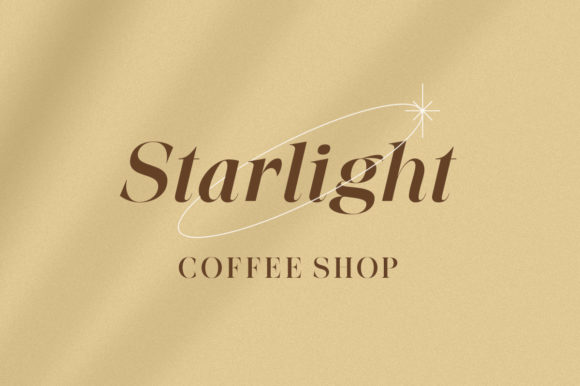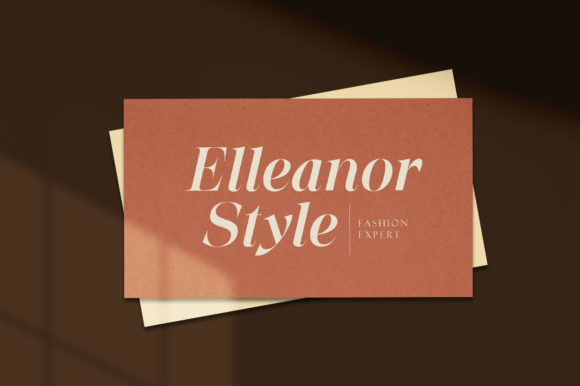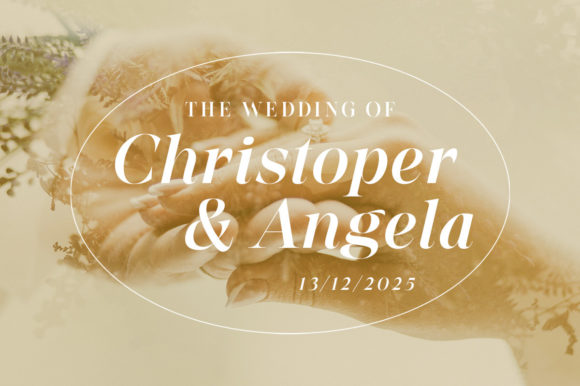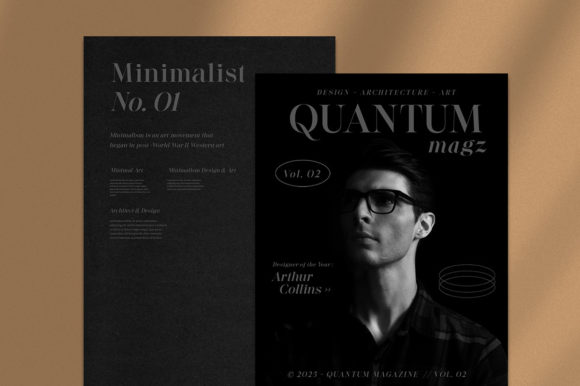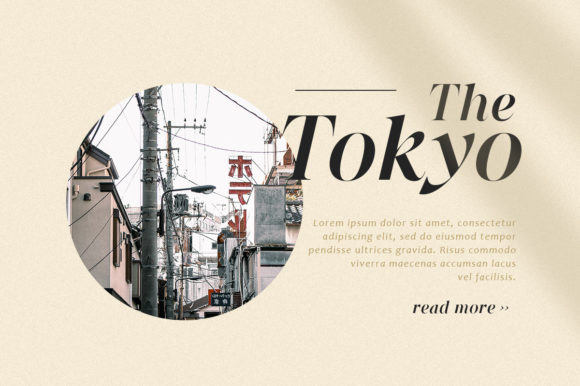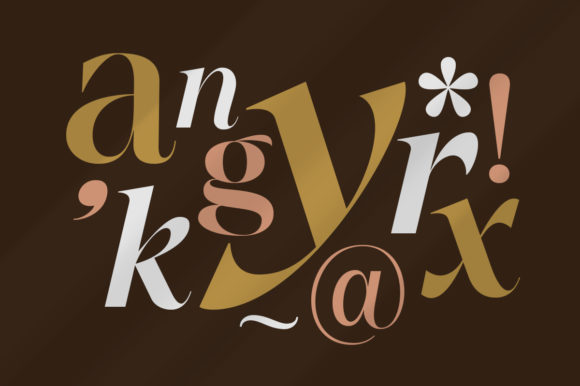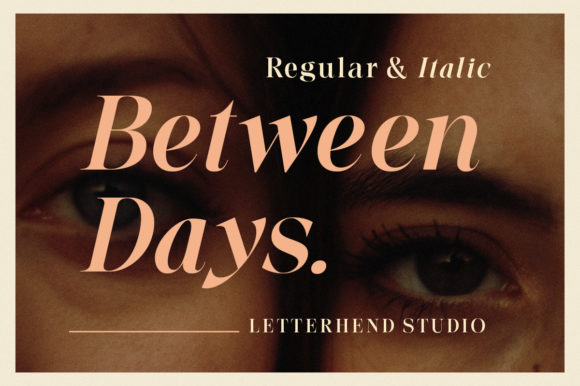
Introducing Between Days Font: Elevate Your Designs with Classic Chic
In the world of typography, finding the perfect font can make all the difference in creating visually stunning designs. If you’re on the hunt for a classic, chic, and distinct serif font, look no further than Between Days Font. This versatile typeface is ideal for a wide range of design projects, from web designs and business cards to craft projects and more. In this article, we’ll dive into the features and benefits of Between Days Font, and explore how it can add a unique touch to your favorite creations.
The Characteristics of Between Days Font
Between Days Font is a serif font that exudes elegance and sophistication. Its classic design makes it perfect for projects that require a touch of tradition and refinement. The font features distinctive serifs, carefully crafted to add a level of uniqueness to your designs. The overall aesthetic is chic and modern, making it suitable for a wide range of applications, from digital designs to print materials.
Why Choose Between Days Font?
So, what sets Between Days Font apart from other fonts? Here are just a few reasons why designers and crafters love this typeface:
- Unique Touch: Between Days Font adds a distinctive touch to your designs, setting them apart from the crowd.
- Versatility: This font is suitable for a wide range of design projects, from web designs and business cards to craft projects and more.
- Elegance: The classic design of Between Days Font makes it perfect for projects that require a touch of sophistication and refinement.
- Readability: The font is designed to be highly readable, making it perfect for body text and headlines.
Using Between Days Font in Your Designs
Between Days Font is incredibly easy to use, making it perfect for designers and crafters of all skill levels. Here are a few ideas for incorporating this font into your designs:
- Web Designs: Use Between Days Font as a heading font or body text to add a touch of elegance to your website.
- Business Cards: Make a lasting impression with a business card that features Between Days Font.
- Craft Projects: Add a personal touch to your craft projects, such as handmade cards, invitations, and more.
- Print Materials: Use Between Days Font in brochures, flyers, and other print materials to add a touch of sophistication.
Tips for Getting the Most Out of Between Days Font
To get the most out of Between Days Font, here are a few tips to keep in mind:
- Experiment with Font Sizes: Play around with different font sizes to find the perfect balance for your design.
- Pair with Other Fonts: Combine Between Days Font with other fonts to create a unique and visually appealing design.
- Use in Headlines and Body Text: Use Between Days Font in headlines and body text to create a cohesive look.
In conclusion, Between Days Font is a classic, chic, and distinct serif font that’s perfect for designers and crafters looking to add a unique touch to their designs. With its elegant design, versatility, and readability, this font is suitable for a wide range of design projects. Whether you’re working on a web design, business card, or craft project, Between Days Font is sure to impress. So why wait? Add Between Days Font to your favorite creations and see the amazing outcome for yourself.
Key Takeaways
- Between Days Font is a classic, chic, and distinct serif font.
- It’s perfect for web designs, business cards, craft projects, and more.
- The font features distinctive serifs and a modern aesthetic.
- It’s highly readable and suitable for body text and headlines.
- Experiment with font sizes, pair with other fonts, and use in headlines and body text to get the most out of Between Days Font.